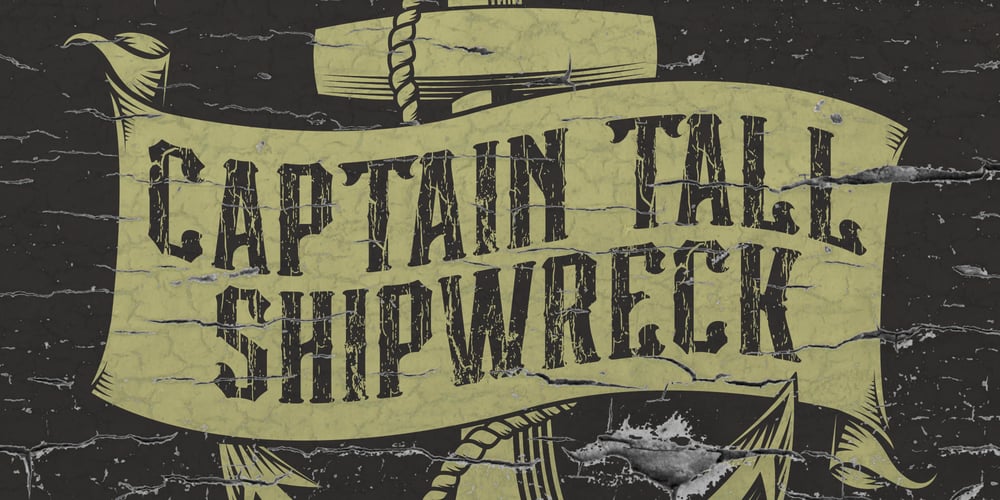
Captain Tall Shipwreck Font Family was designed by Swinn Jonathan and published by Alphabet Agency. Captain Tall Shipwreck contains 1 styles and family package options. The font is inspired by popularity of the original Captain Shipwreck font.The font is great for use in pirate and other outlaw related themes. It is great for use on many projects, from birthday party invites to beer labels.